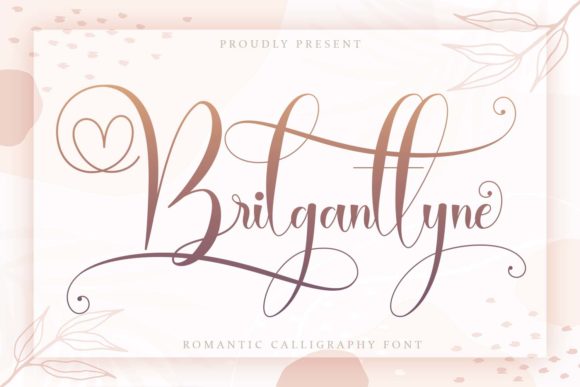
Discover the Charm of Brilganttyne Font: A Sweet and Soft Hand-Lettered Script
Are you a designer or crafter looking for a font that exudes warmth, elegance, and playfulness? Look no further than Brilganttyne, a beautiful hand-lettered handwritten font that is sure to capture your heart. With its authentic feel and versatile design, Brilganttyne is the perfect choice for creating stunning wedding invitations, gorgeous stationery art, eye-catching social media posts, and adorable greeting cards.
The Characteristics of Brilganttyne Font
Brilganttyne is a sweet and soft hand-lettered font that boasts a unique and charming personality. Its authentic feel is reminiscent of traditional handwritten scripts, yet it has a modern twist that makes it perfect for contemporary designs. The font features:
- Hand-drawn letters: Each letter is carefully crafted by hand, giving the font a personal and human touch.
- Soft and rounded edges: The font’s edges are smooth and rounded, creating a warm and inviting feel.
- Elegant connections: The letters are connected with elegant strokes, adding a touch of sophistication to the font.
- Playful flair: Brilganttyne has a playful side, making it perfect for designs that require a bit of whimsy.
Uses for Brilganttyne Font
Brilganttyne is a versatile font that can be used for a wide range of design projects. Here are some ideas to get you started:
- Wedding Invitations: Create beautiful and elegant wedding invitations that set the tone for a special day.
- Stationery Art: Design gorgeous stationery art, including notecards, journals, and planners.
- Social Media Posts: Add a touch of personality to your social media posts with eye-catching graphics and quotes.
- Greeting Cards: Create adorable greeting cards for special occasions, such as birthdays, anniversaries, and holidays.
Why Choose Brilganttyne Font?
With so many fonts available, why choose Brilganttyne? Here are just a few reasons:
- Unique and distinctive: Brilganttyne stands out from the crowd with its unique and charming design.
- Easy to read: The font is clear and easy to read, making it perfect for body text and headings.
- Customizable: Brilganttyne can be customized to fit your design needs, including adjusting the size, color, and style.
- Support for multiple languages: The font supports multiple languages, making it a great choice for international designs.
Tips for Using Brilganttyne Font
Here are some tips for getting the most out of Brilganttyne:
- Pair with complementary fonts: Pair Brilganttyne with complementary fonts to create a unique and harmonious design.
- Experiment with colors: Try out different colors and textures to add depth and interest to your design.
- Use for headlines and titles: Brilganttyne is perfect for headlines and titles, adding a touch of elegance and sophistication.
- Don’t be afraid to get creative: Brilganttyne is a versatile font that can be used in a variety of creative ways, so don’t be afraid to experiment.
In conclusion, Brilganttyne is a sweet and soft hand-lettered font that is sure to capture your heart. With its authentic feel, versatile design, and charming personality, it’s the perfect choice for designers and crafters looking to add a touch of elegance and playfulness to their designs. So why not give Brilganttyne a try and see the magic for yourself?